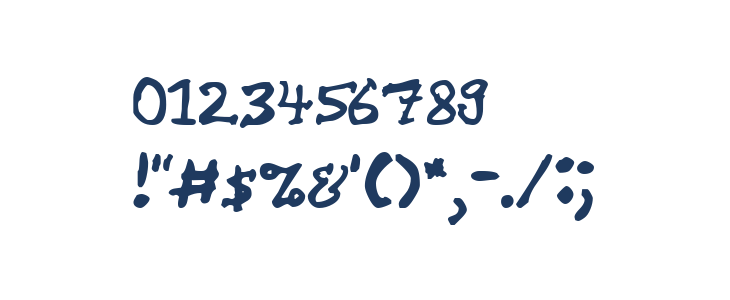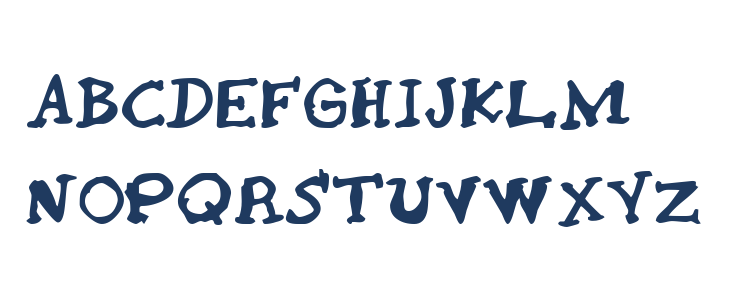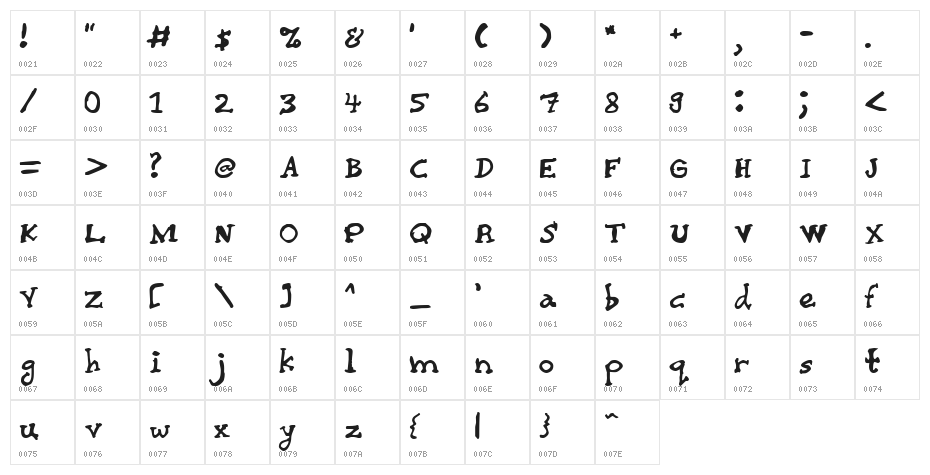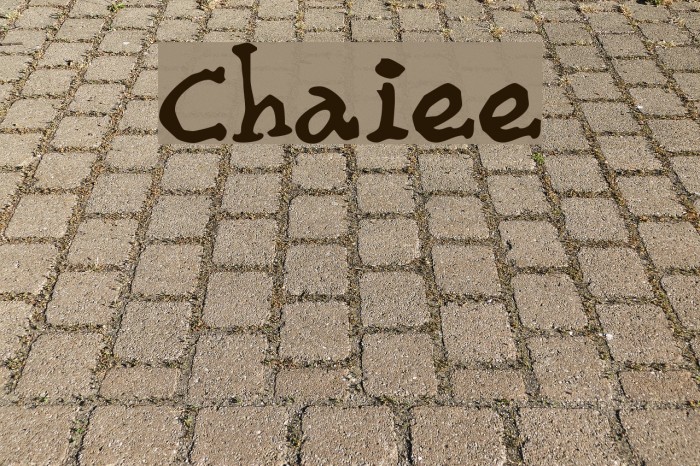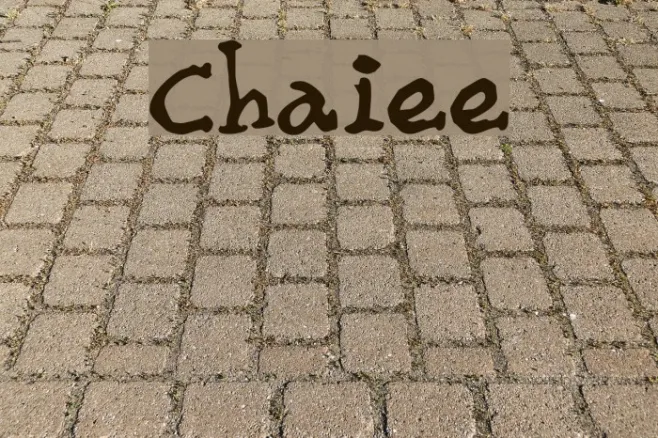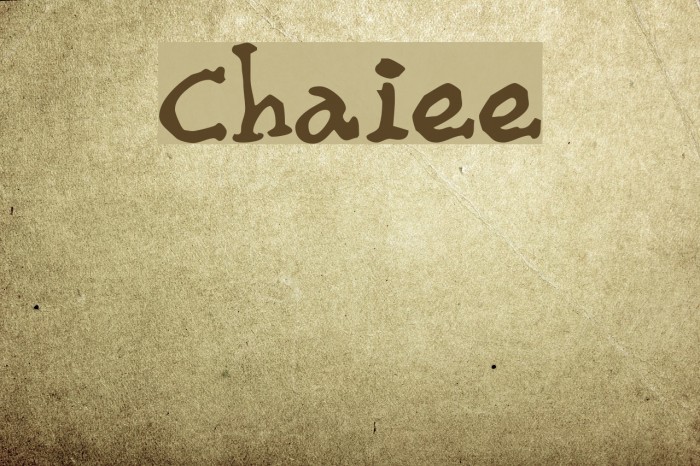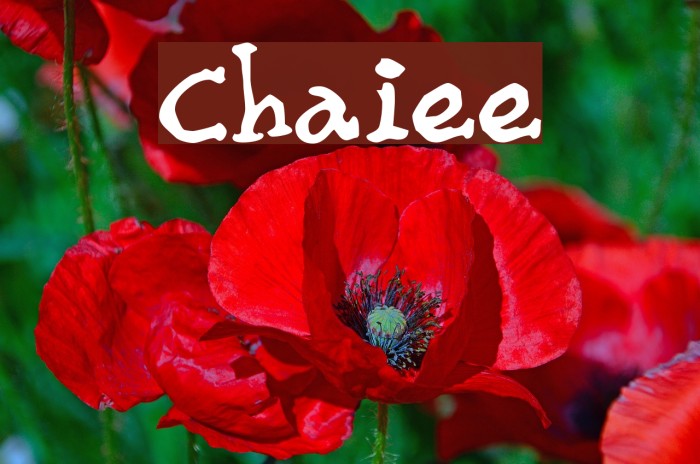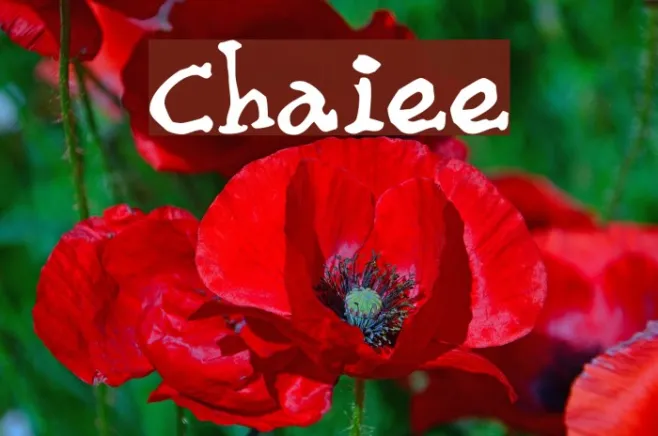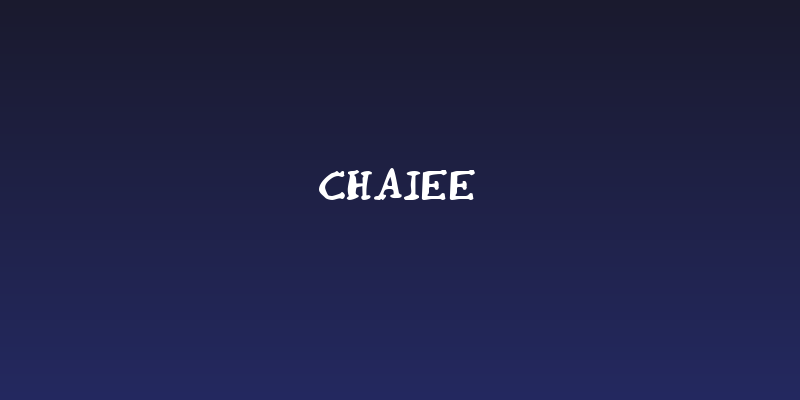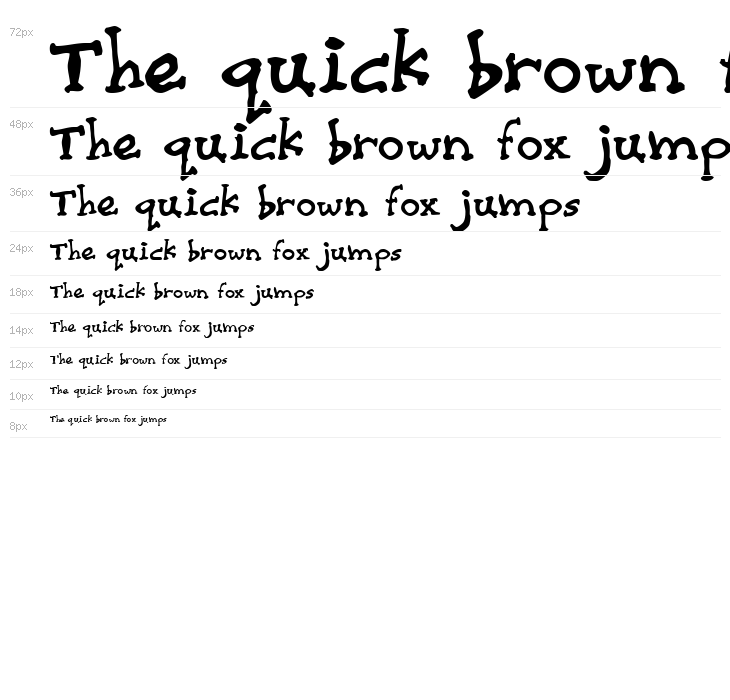
Chaiee Font
Chaiee Description
This font features a playful and whimsical style, characterized by its uneven strokes and hand-drawn appearance. The letters have a casual, organic feel, with varying thicknesses and slightly irregular shapes that add to its charm. The uppercase and lowercase letters maintain a consistent style, while the numerals and special characters complement the overall aesthetic. This font exudes a sense of creativity and spontaneity, making it suitable for projects that aim to convey a fun and informal tone.
| Proposed Projects | Ideal for children's books, creative posters, casual invitations, and playful branding. |